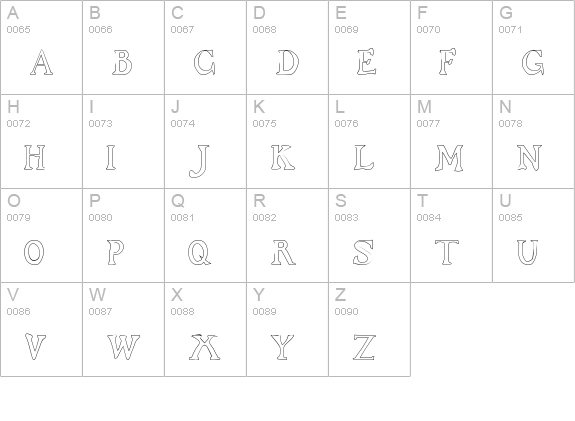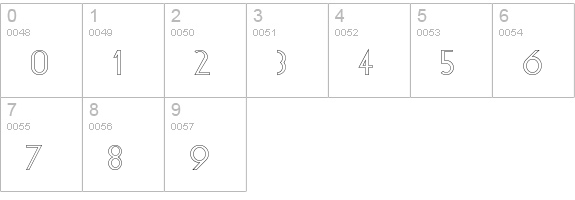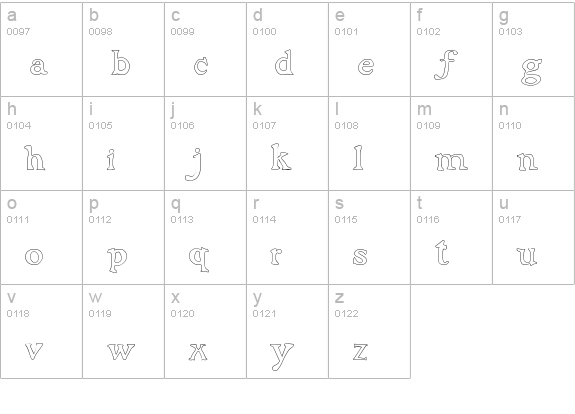
UnikumOpen Font Details
UnikumOpen is a modern and elegant font that exudes sophistication and style. With its clean lines and unique design, this font is perfect for a wide range of design projects, from branding to editorial design. The versatility of UnikumOpen makes it a must-have for designers looking to elevate their work to the next level. One of the best things about UnikumOpen is that it is completely free to download at FontsMarket.com. This means that you can access this high-quality font without any cost, making it a valuable addition to your design toolkit. Whether you are working on a personal project or a client's design, UnikumOpen is sure to make a statement and leave a lasting impression. Download UnikumOpen today and see for yourself the impact this font can have on your designs.